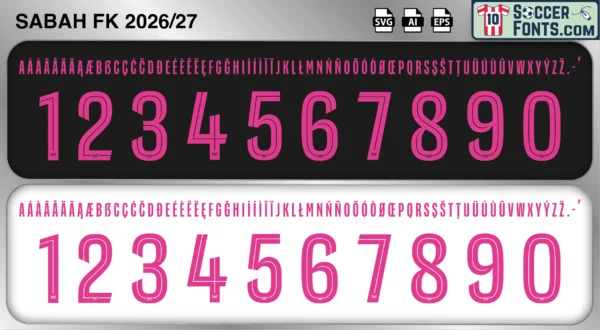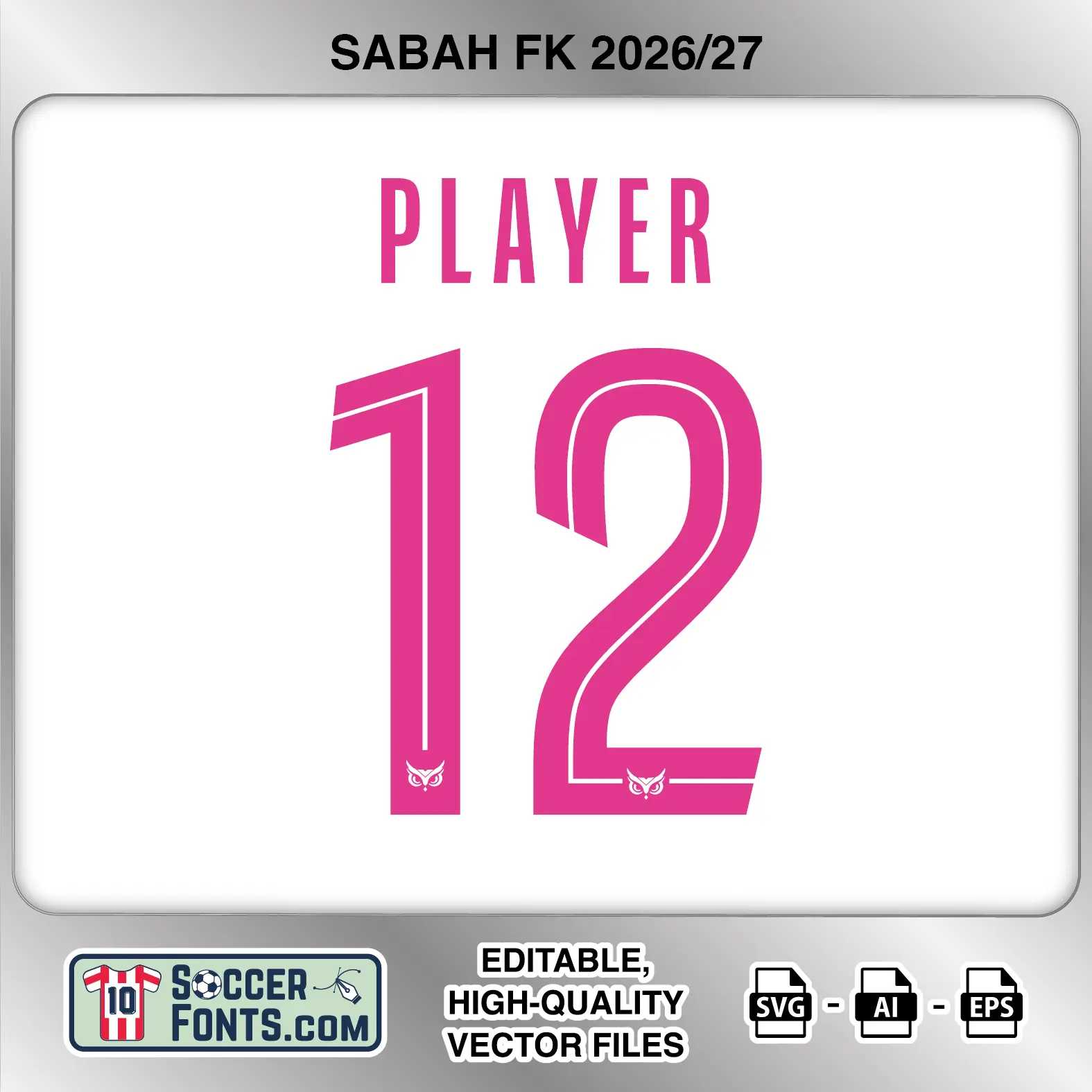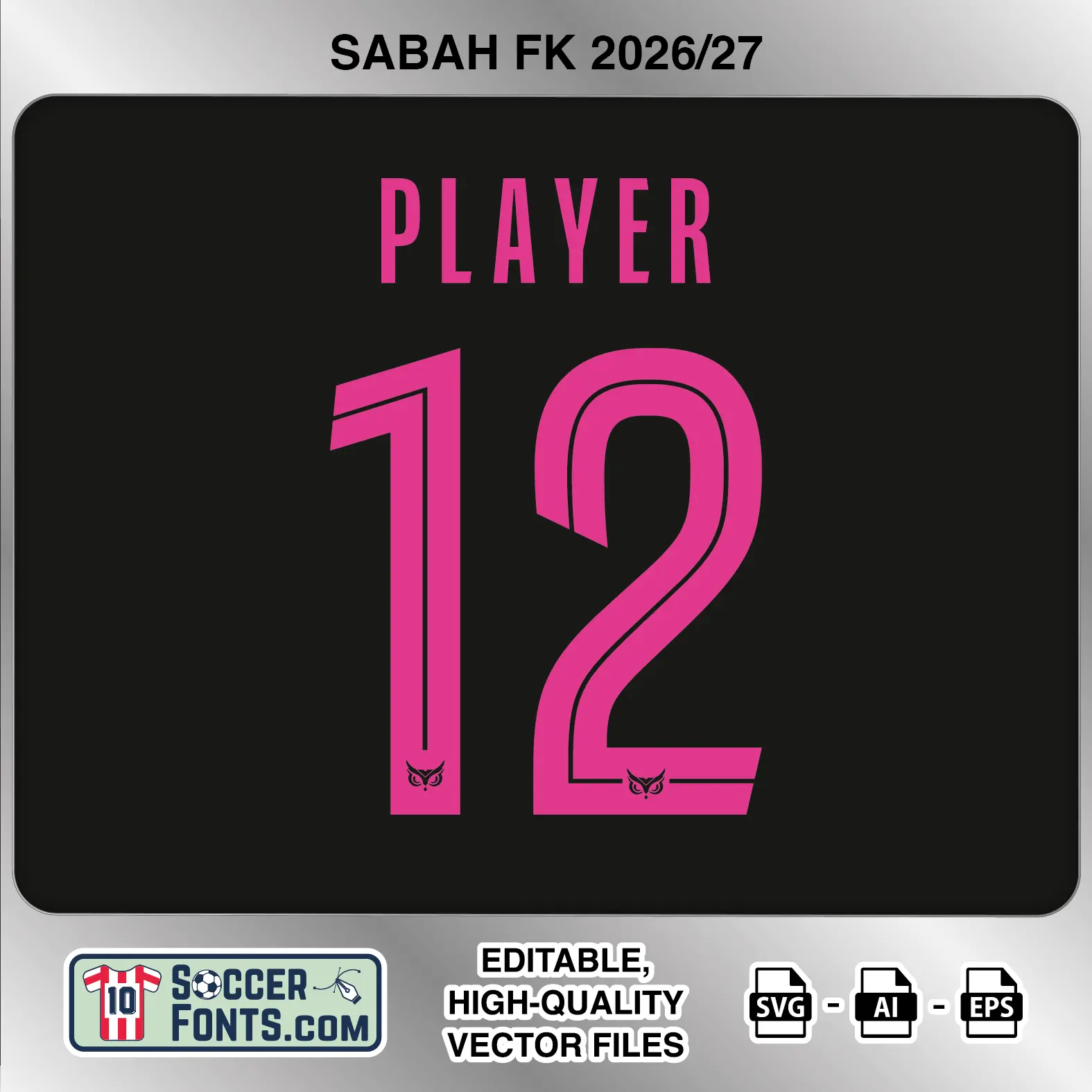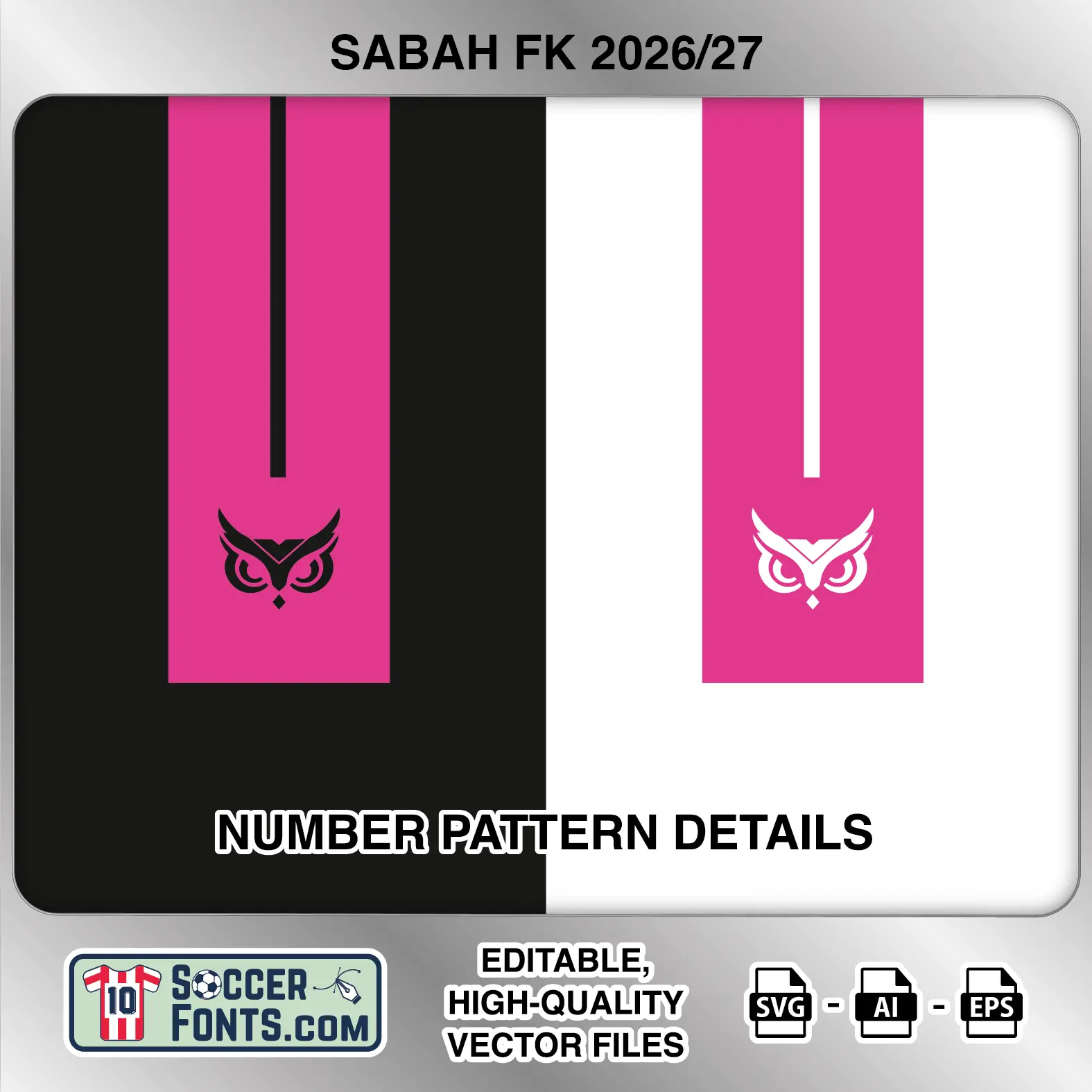
About Sabah 2026-27 Font
Download Sabah FK 2026-27 font, an editable soccer jersey lettering design in vector format inspired by the Sabah FK kit typography used during the 2026-27 football season. This football font artwork is prepared for football shirt recreations, custom jersey projects, football kit mockups and sports graphic design workflows.
Visual Identity of the Font Design :
The lettering uses an exceptionally tall and narrow uppercase alphabet, giving player names a compact vertical appearance. The numerals follow a lighter, elongated construction with smooth curves combined with distinctive angled interruptions. A fine inset line runs through the interior of each number, closely following its outer shape and creating a layered two-line effect.
Several numerals have deliberately separated or cut sections: the 1 features a split angled top, the 2 and 3 contain breaks around their upper-left curves, and the 5, 6 and 9 use similar interrupted transitions. The 4 has an unusual open structure, while the 8 is formed from two narrow rounded loops. A small Sabah owl emblem appears near the base of every numeral. The supplied previews show vivid pink lettering in both light and dark shirt applications, with the internal line changing contrast according to the background. The alphabet includes an extensive selection of accented uppercase characters.
Context of 2026-27 Season for Sabah FK :
The Sabah 2026-27 Font belongs to a historic campaign for the rapidly developing Azerbaijani club. After winning the domestic double in 2025-26, Valdas Dambrauskas guided Sabah through Champions League qualifying and into the league phase for the first time in club history. Founded only in 2017, Sabah became the youngest club ever to reach the Champions League league phase or group stage.
The Sabah 2026-27 Font is therefore connected with the club’s first season on Europe’s biggest club stage. Their league-phase schedule includes matches against Manchester United, Slavia Praha, Borussia Dortmund, Viking, Barcelona, Villarreal, Napoli and Arsenal. Veljko Simić entered the campaign as a particularly important attacking figure after scoring six times during Champions League qualifying, while the squad also features Stas Pokatilov, Tymoteusz Puchacz, Akim Zedadka, Kaheem Parris and Joy-Lance Mickels.
For shirt collectors and designers, the Sabah 2026-27 Font represents a distinctive visual element from a landmark season in the club’s short history.